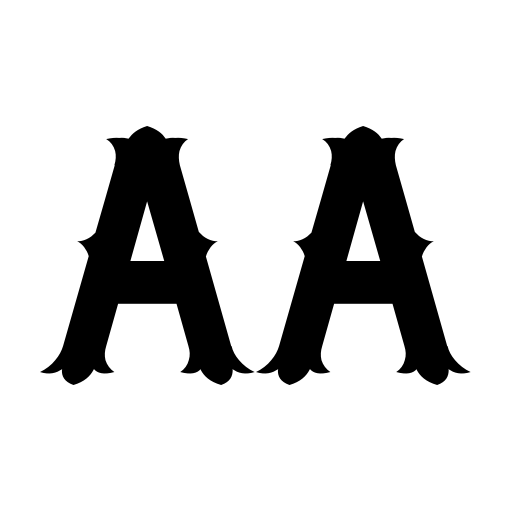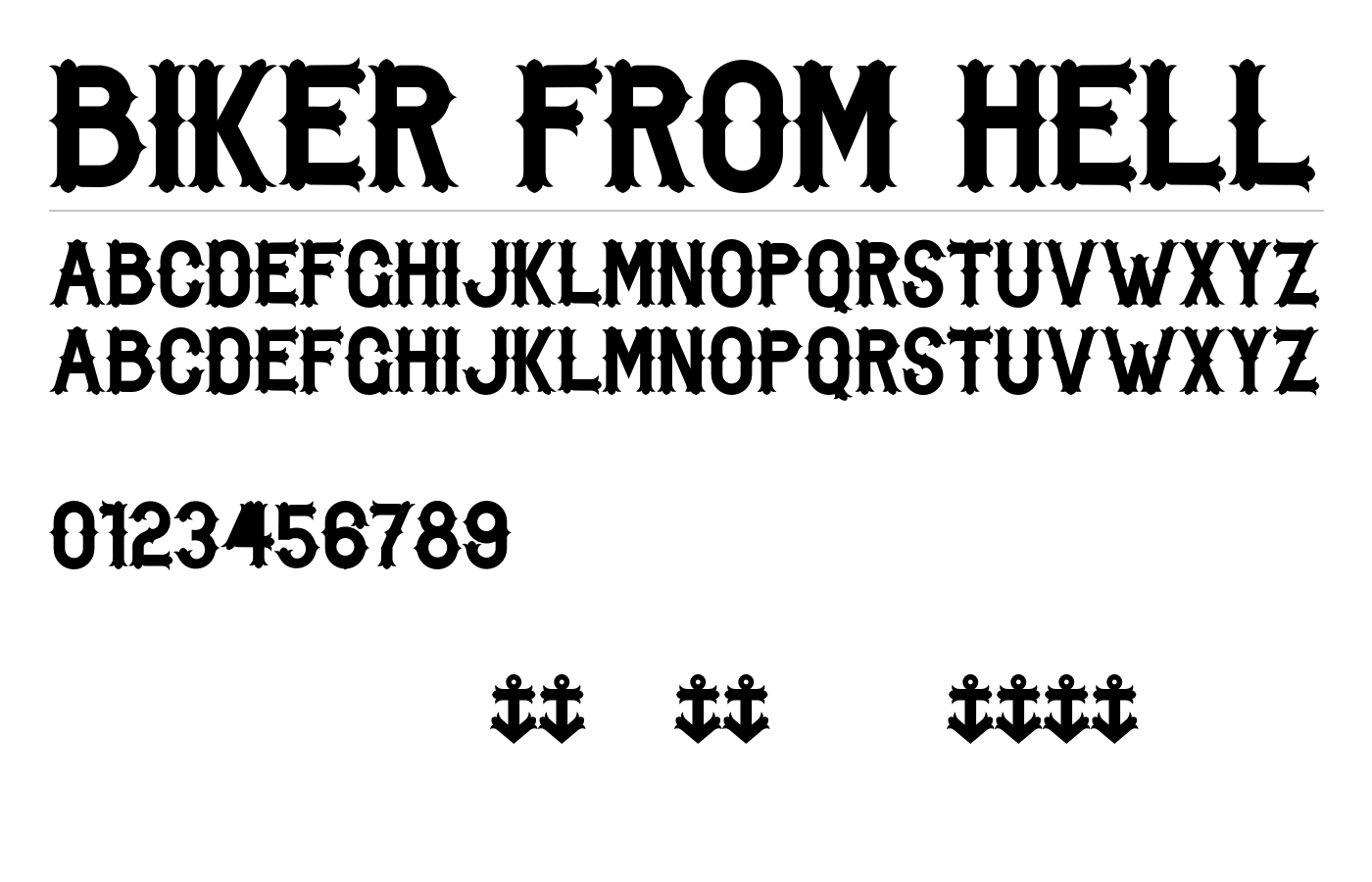
Biker from Hell is a bold, condensed serif font with sharp, dramatic edges that evoke a rebellious and rugged style. Its striking silhouette and heavy weight make it perfect for eye-catching headlines, logos, or designs that want to convey a tough, vintage biker or heavy metal aesthetic. This distinctive font works best where bold impact and a strong, edgy personality are needed.
Biker from Hell Font
About Biker from Hell Font